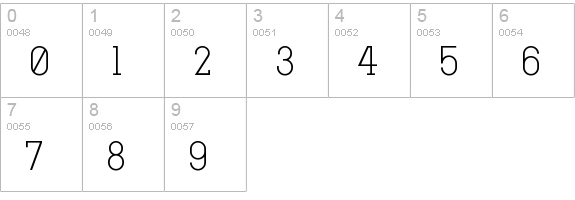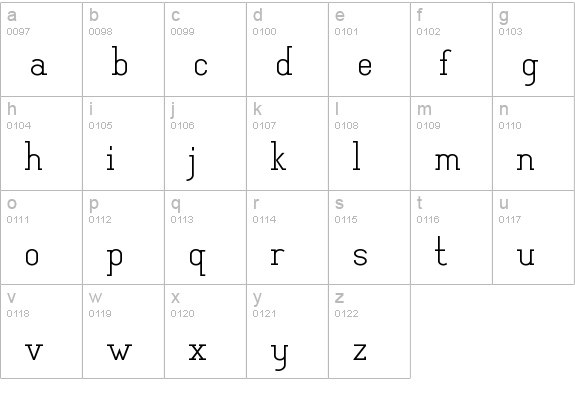
Hope Font Details
Introducing Hope Font, a captivating and versatile typeface that exudes elegance and optimism. Designed with a perfect balance between modernity and classic charm, this font is sure to add a touch of sophistication to any project. With its graceful curves and refined letterforms, Hope Font effortlessly captures attention and creates a lasting impression. Its clean lines and well-balanced proportions make it suitable for a wide range of design applications, from branding and advertising to editorial and packaging design. One of the greatest advantages of Hope Font is that it is free! Yes, you read that right. This remarkable typeface is freely available to download at FontsMarket.com, a trusted source for high-quality fonts. Now, you can enjoy the beauty and versatility of Hope Font without breaking the bank. Whether you're a professional designer or a passionate hobbyist, Hope Font offers endless possibilities for creativity. Its extensive character set includes various ligatures, alternate glyphs, and punctuation marks, allowing you to customize and personalize your designs with ease. Furthermore, Hope Font is incredibly legible, making it a reliable choice for both digital and print mediums. Its clarity ensures that your message is conveyed with precision, while its unique personality adds a touch of warmth and individuality to your typography. So why wait? Discover the power of Hope Font and elevate your designs to new heights. Download it for free at FontsMarket.com and unlock a world of endless creativity and inspiration. Don't miss out on this incredible opportunity to enhance your projects with a font that embodies hope and beauty.